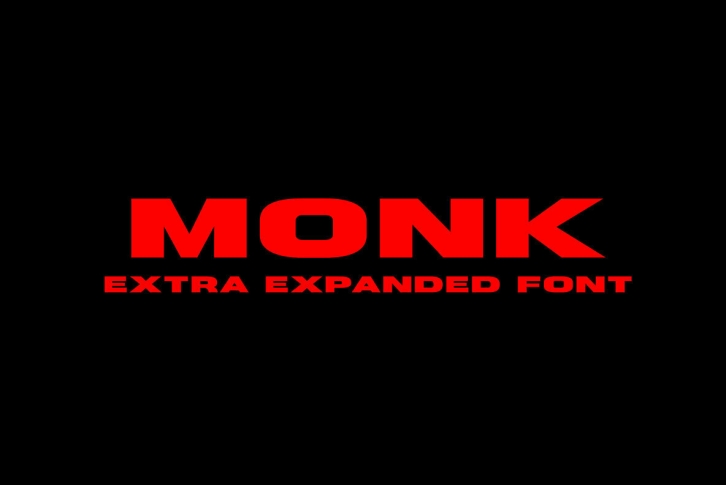
Monk font is made with an extra expanded style and combined with the value of beauty and authenticity so that it looks like it has a solid impression. suitable for use in graphic design such as logos, billboards, posters, and large graphic designs.